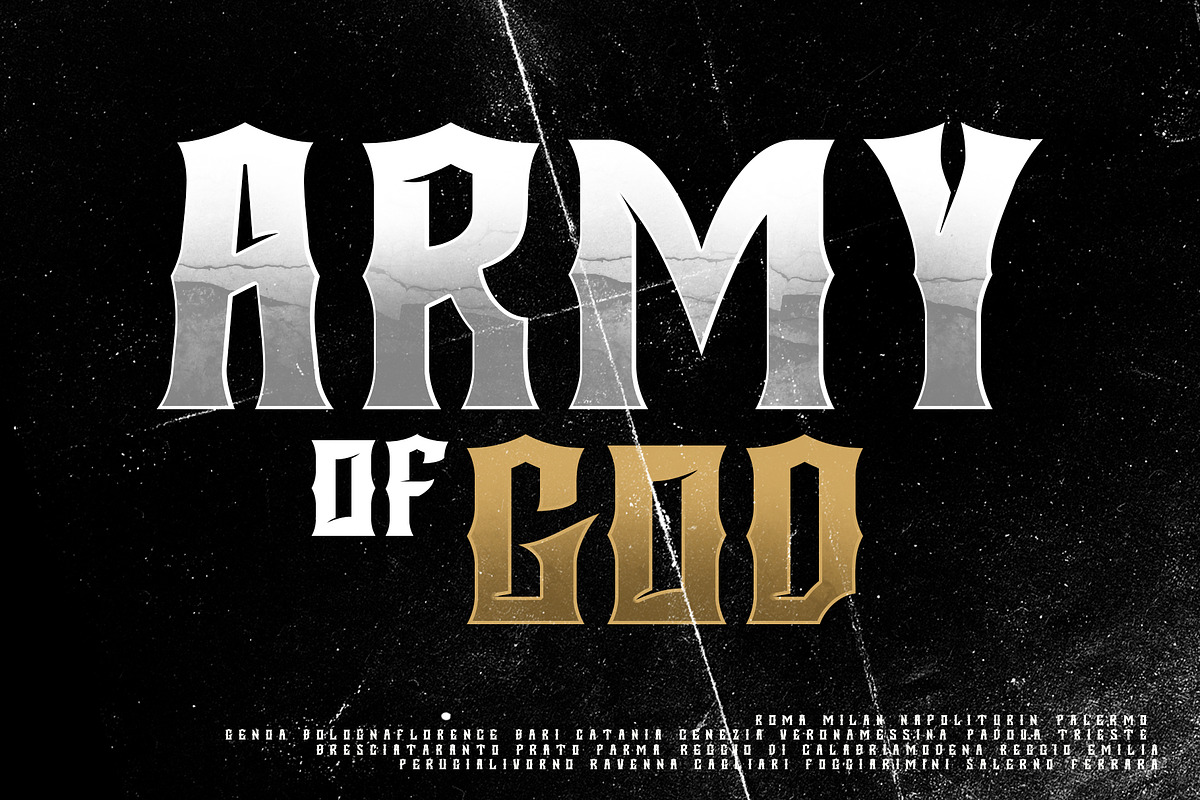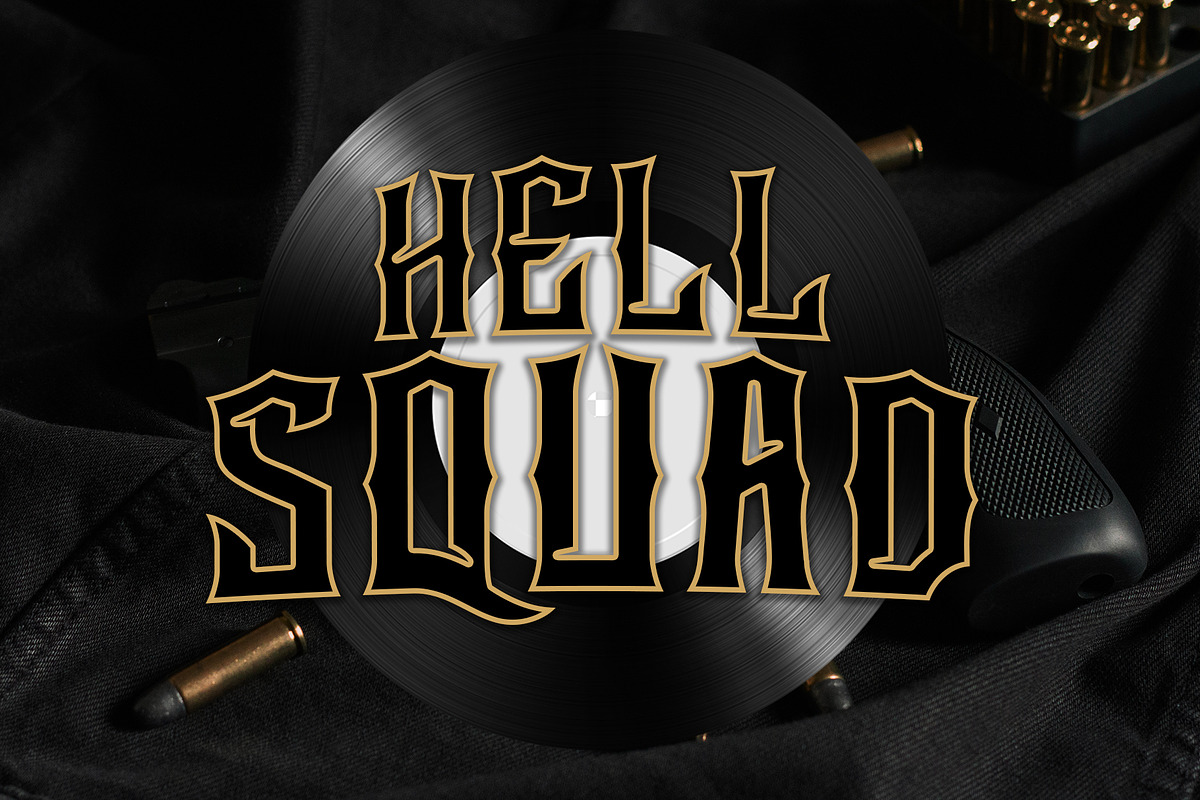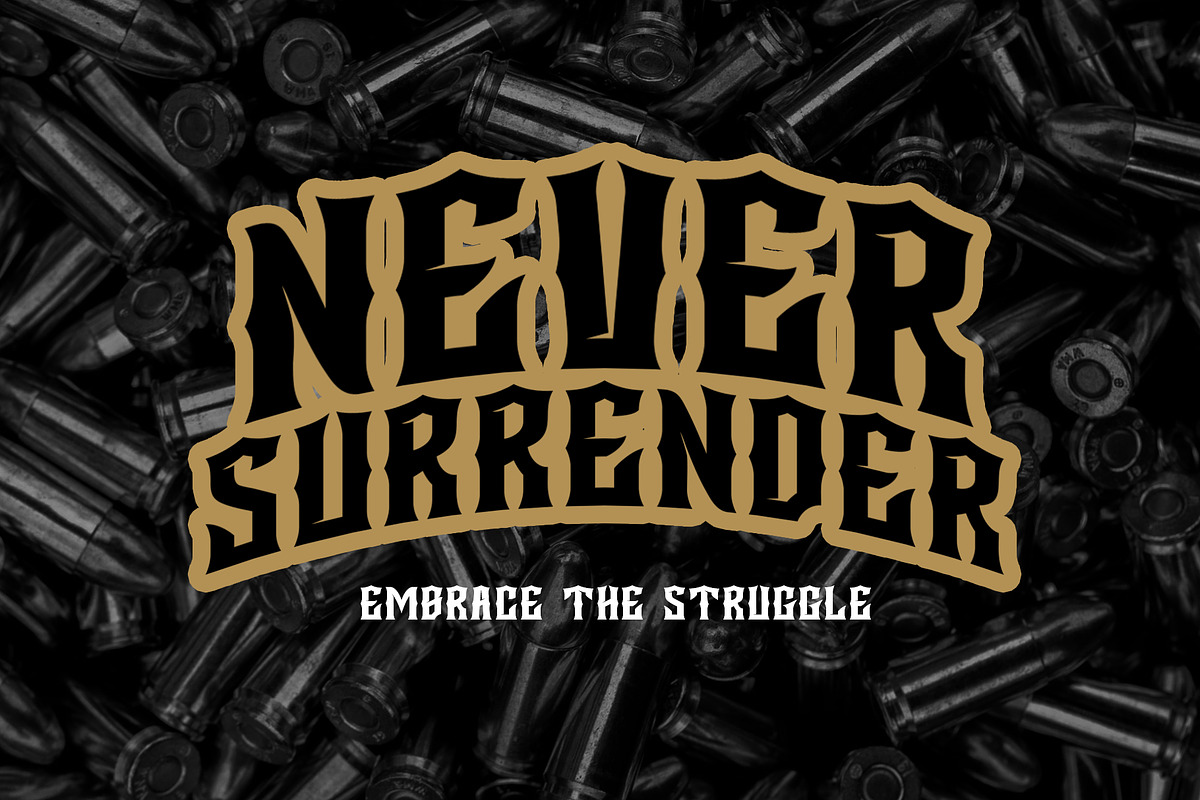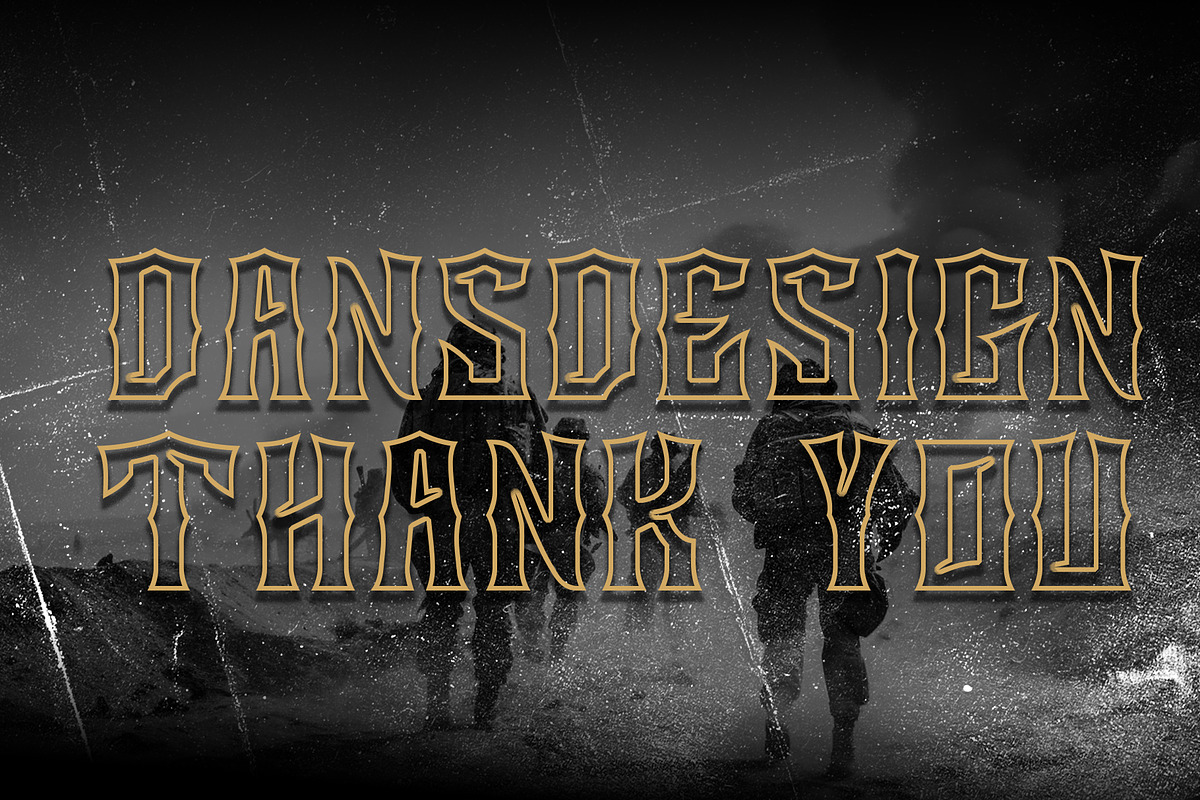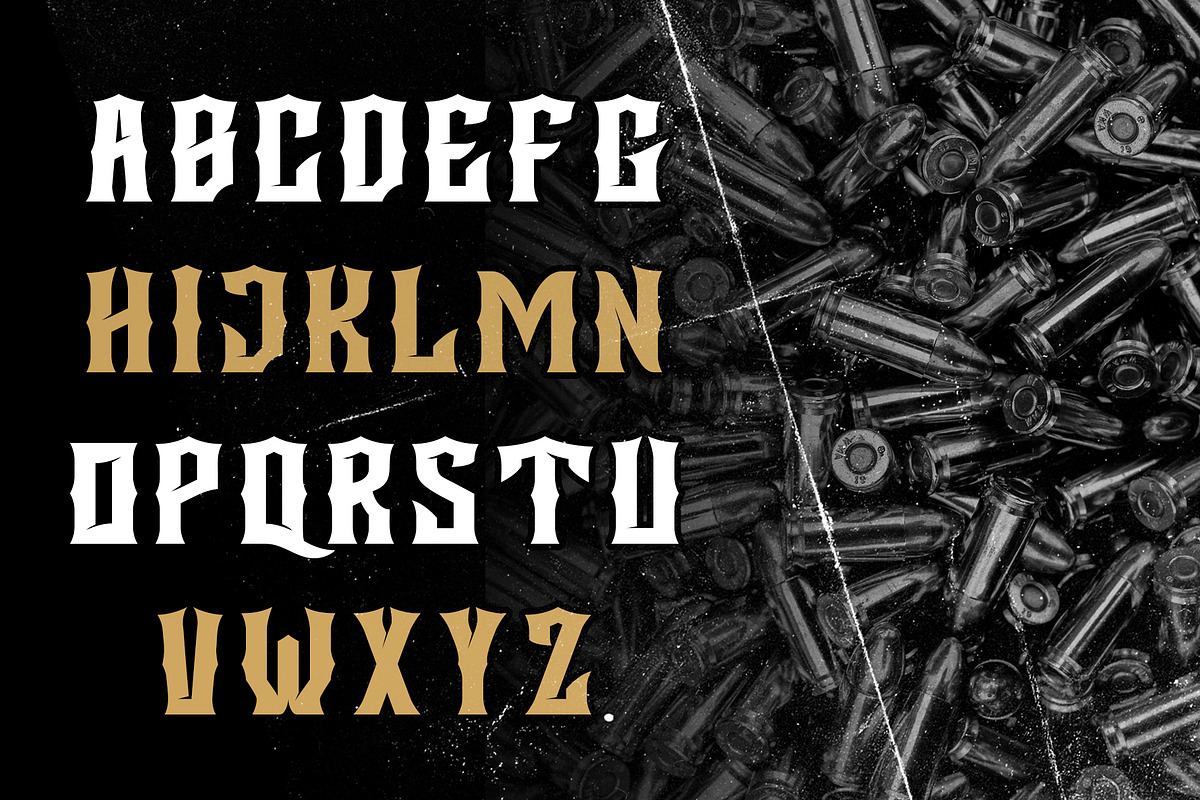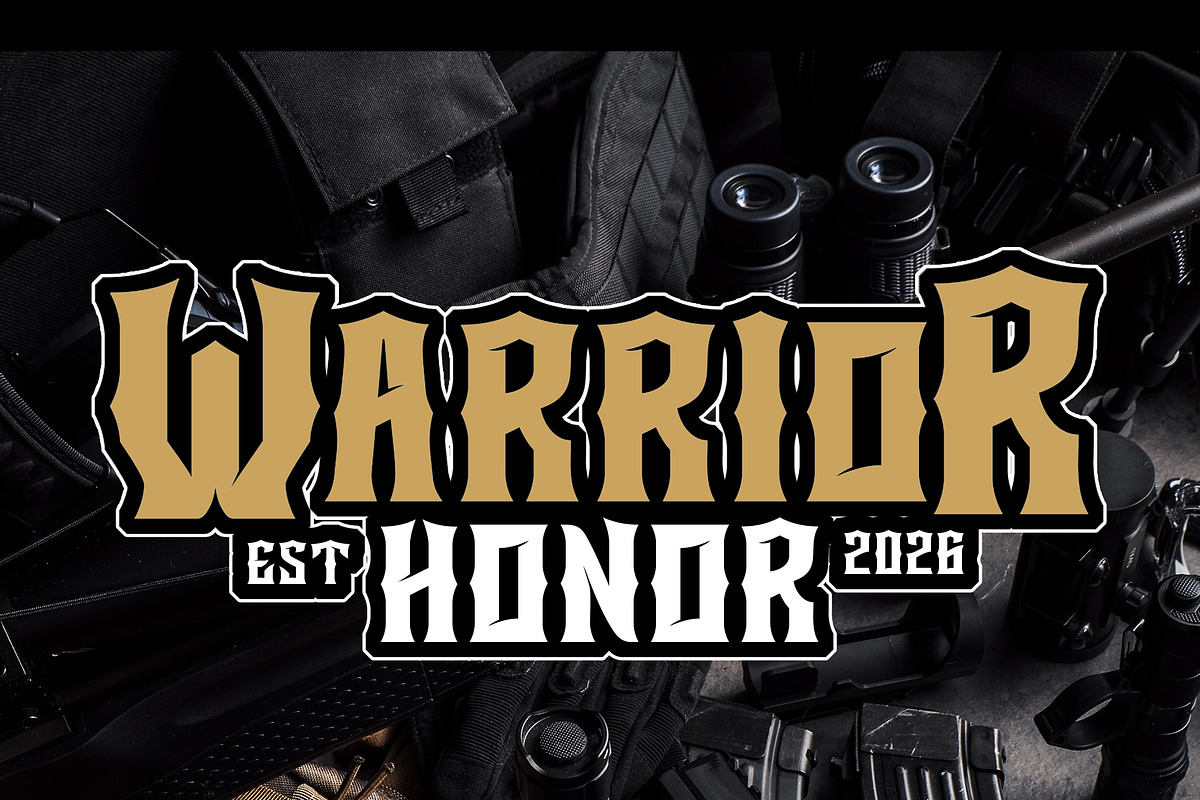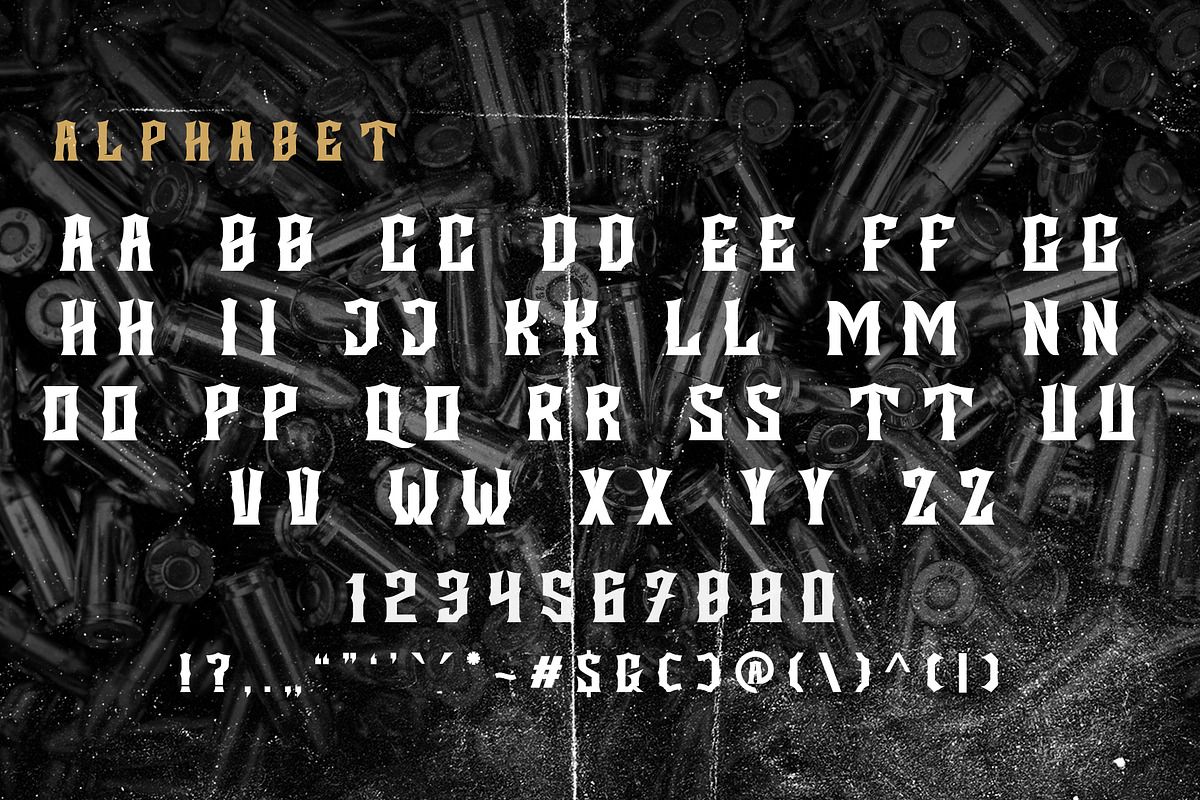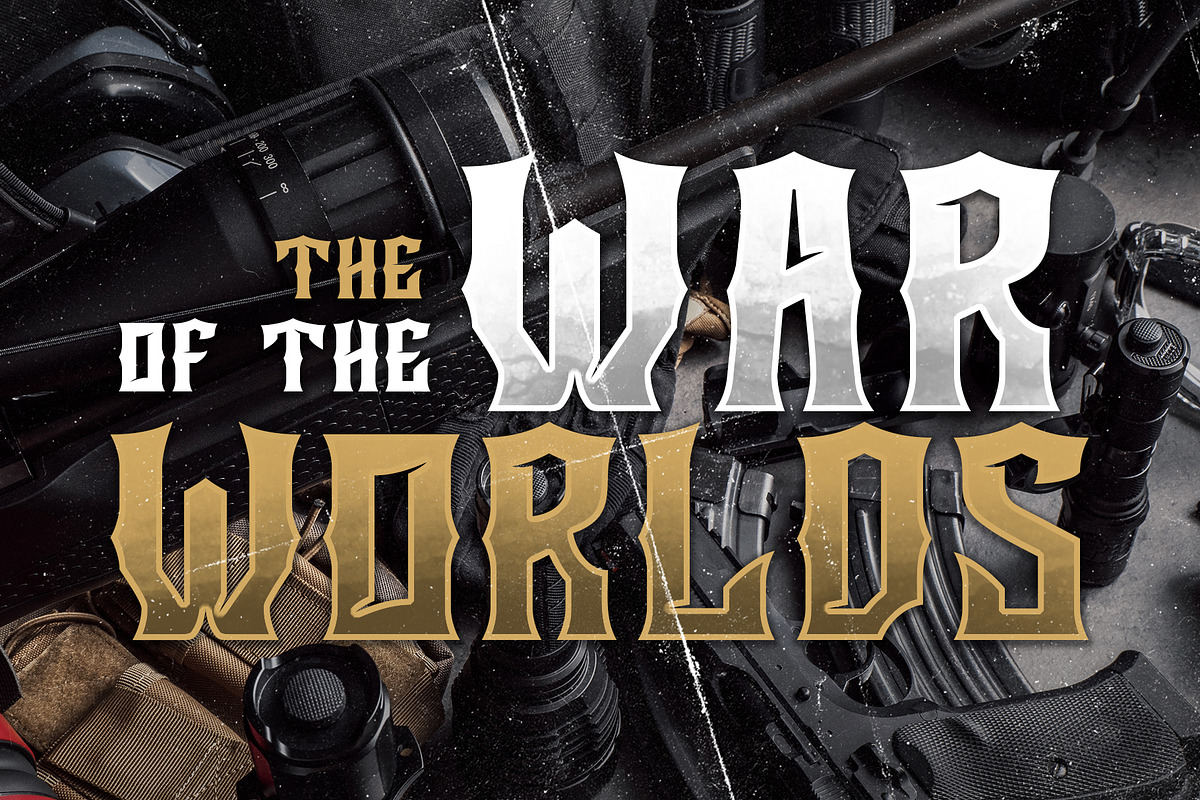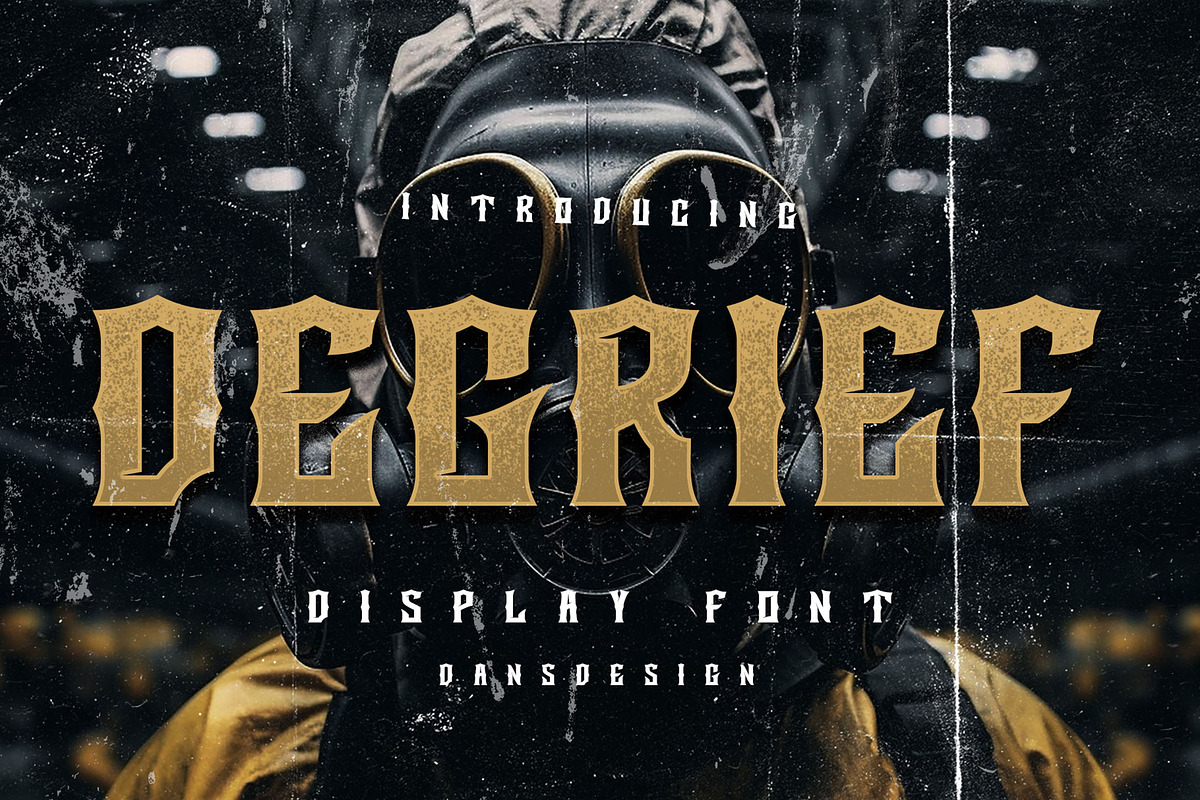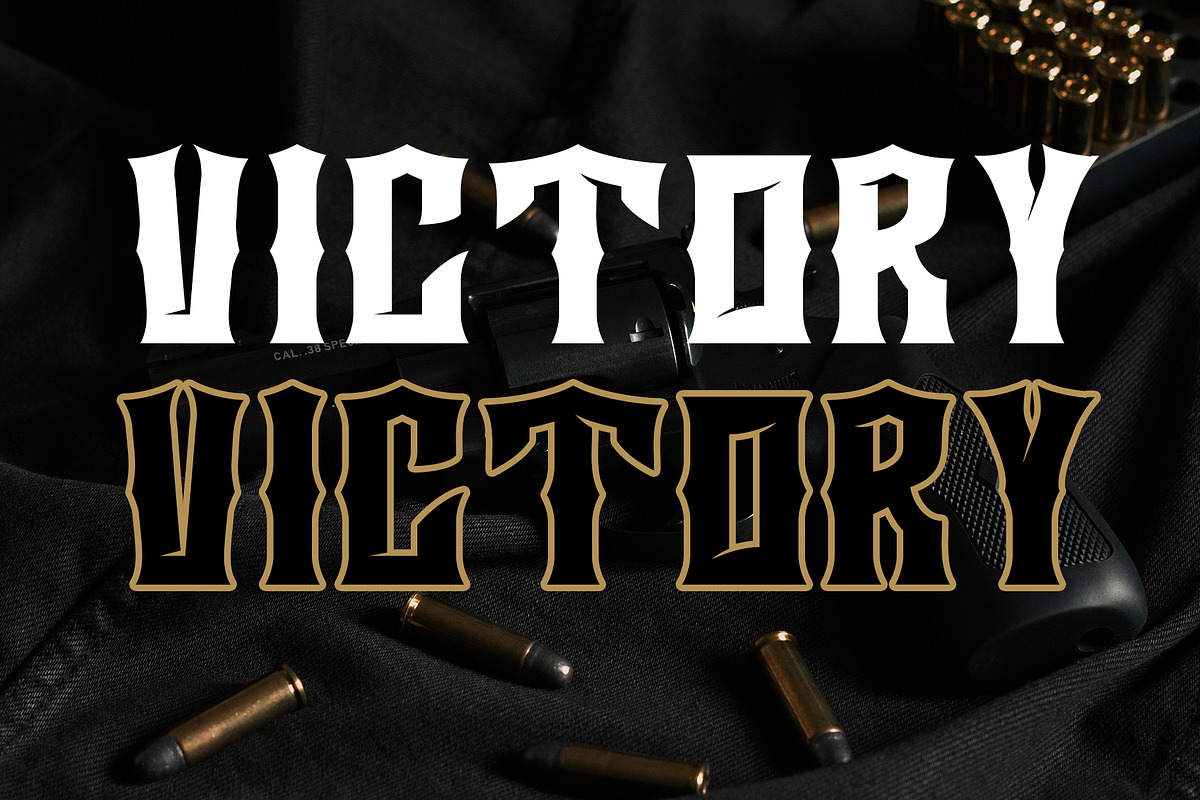
DEGRIEF Vintage Blackletter Display
DEGRIEF – Vintage Blackletter Display Font is a bold and dramatic typeface that blends gothic, retro, and vintage blackletter styles. Its sharp details and strong character make it perfect for metal band logos, music posters, tattoo branding, streetwear designs, and classic vintage projects.
With its horror-inspired blackletter look, this display font adds a powerful and edgy touch to any creative work. Ideal for headlines, album covers, merchandise, and urban retro designs that demand attention.
Bring your designs to life with DEGRIEF – Vintage Blackletter Display Font and add a unique mix of vintage, gothic, and metal energy to your projects.